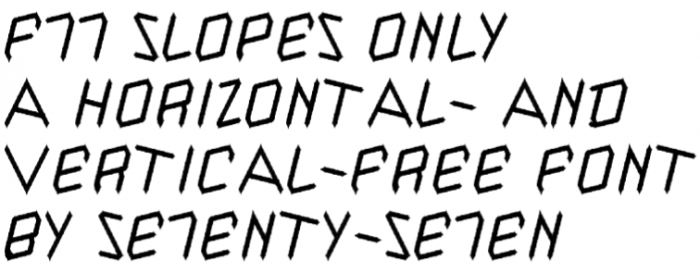
• A font that has no horizontal or vertical contours...
R tail is somewhat wider than the other lines
@Cookielord I know... I'm trying to create a font that does not use horizontal or vertical lines...
This would be a very nice font with lower case. I like the slopes only. It is very appealing. I guess it is because I like diagonals.
Also made W narrower...
I think the hook on the E is a little bit too big. It works on the F, but the E looks a little strange.